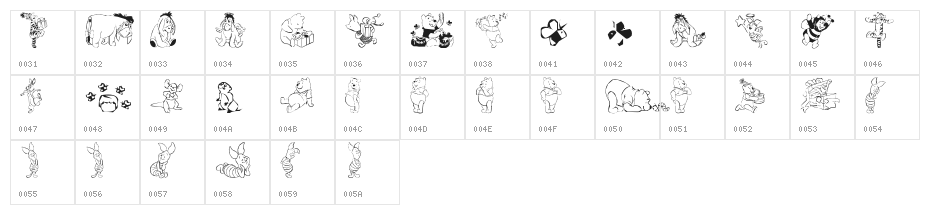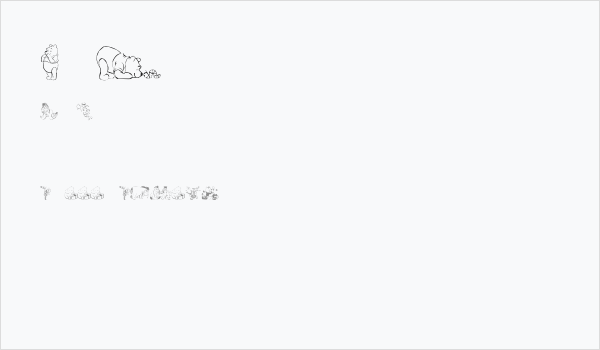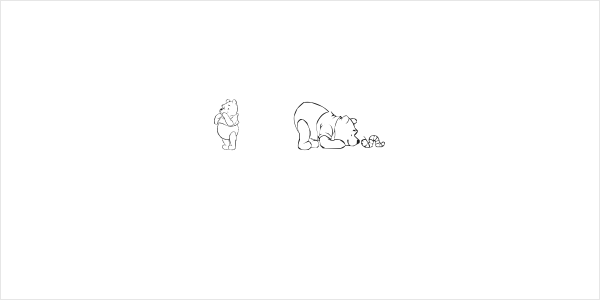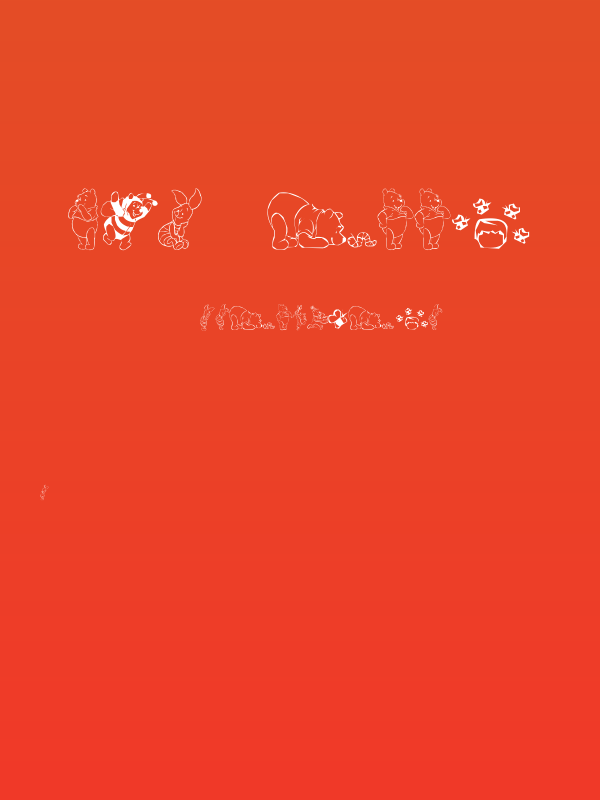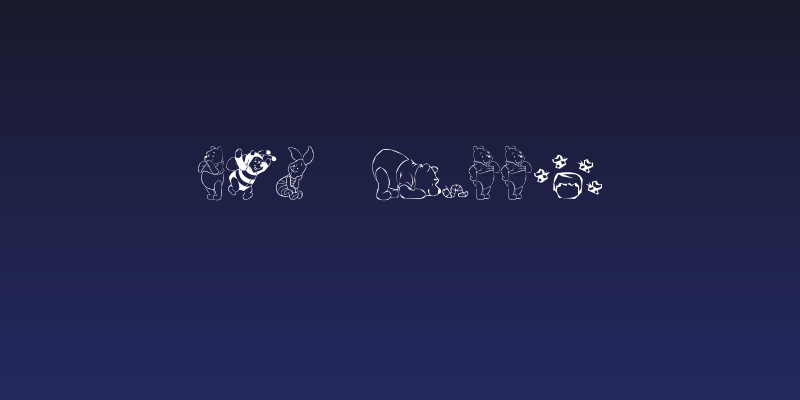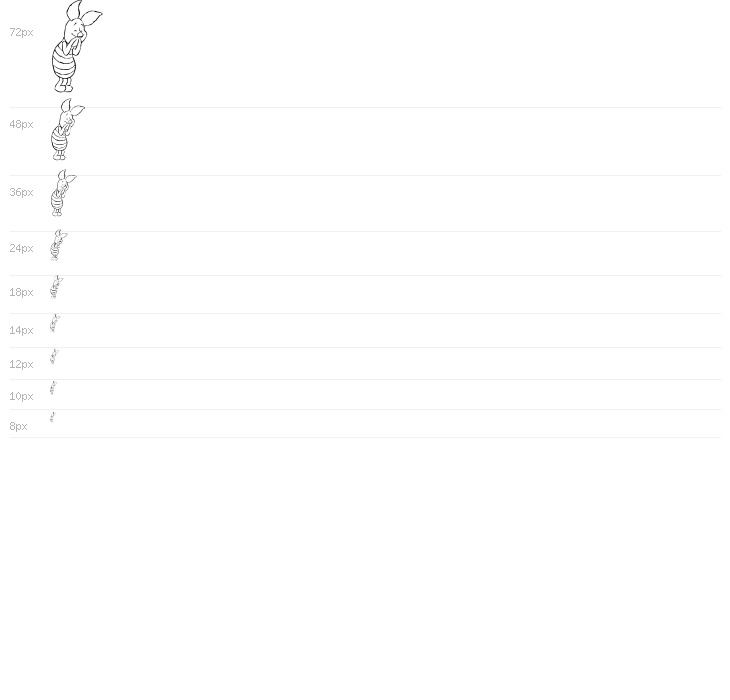
New Pooh Font
New Pooh Description
A decorative dingbat font featuring detailed line art illustrations of classic cartoon animal characters in various playful and expressive poses, with each glyph representing a unique scene or character rather than standard alphanumeric forms.
| Overall Style | Decorative, Playful, Whimsical |
| Use Case | Illustrative accents, themed designs, non-textual decoration. |
| Proposed Projects | ChildrenΓ’β¬β’s party invitations, themed scrapbooks, educational materials, greeting cards, decorative borders. |